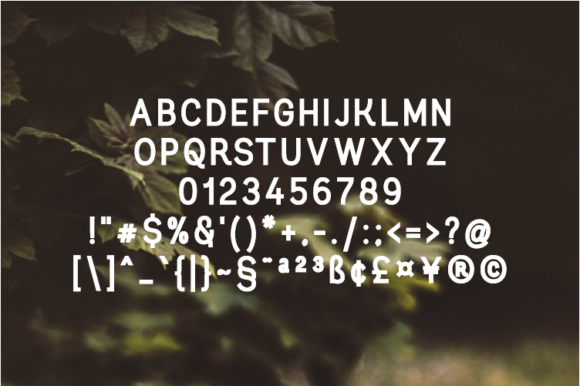
Introduction to Riabold Font
Riabold is a modern and casual sans serif font with an undeniably clean feel.
With its neat and beautiful arrangement of letters, this typeface will look outstanding in both formal and non-formal designs .
Key Features of Riabold Font